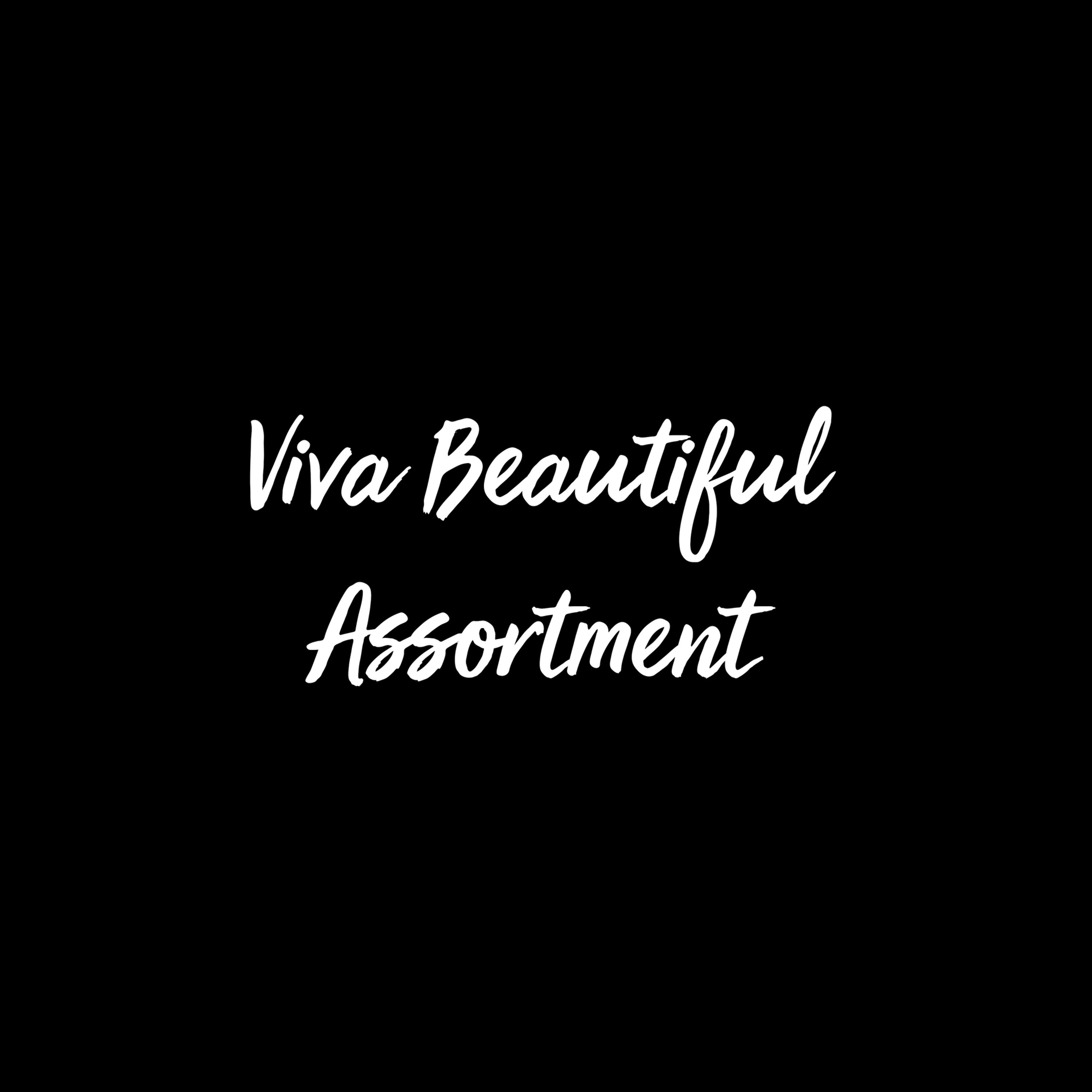
VIVA BEAUTIFUL FONT ASSORTMENT is a Brush Font Collection that includes 6 brush script fonts and Adobe Illustrator (AI) Vector Artwork.
Viva Beautiful I Font
Viva Beautiful J Font
Viva Beautiful K Font
Viva Beautiful L Font
Viva Beautiful M Font
Viva Beautiful Caps C Font
Viva Beautiful Pop Words Font + (AI) Vector Art
Viva Beautiful fonts are lovely hand painted brush scripts. Viva Beautiful Caps C font is a lovely hand painted all-caps brush font. Viva Beautiful Pop Words font and vector art work great if you need trending keywords ideas.
Try using Viva Beautiful fonts for fashion, beauty products, food, apparel, and magazines. Viva Beautiful could also be used for film, television, marketing, advertising, and websites. Bring beauty to your designs with Viva Beautiful!
Viva Beautiful Font Assortment